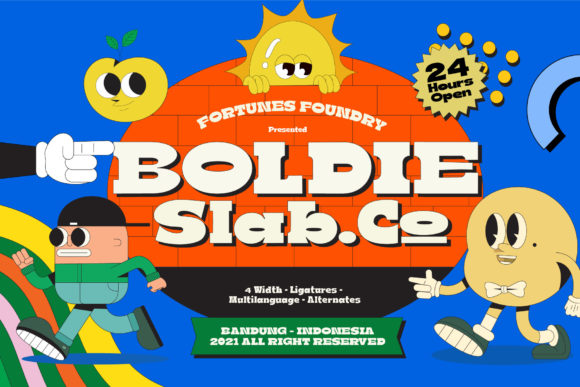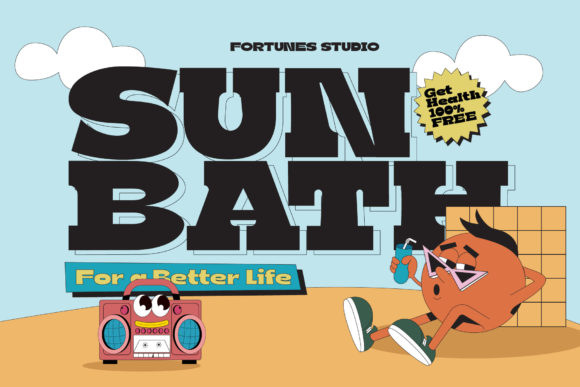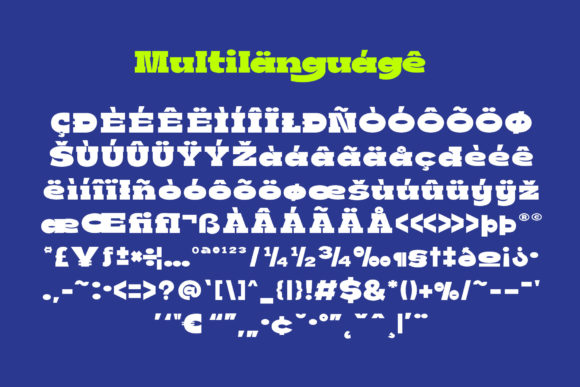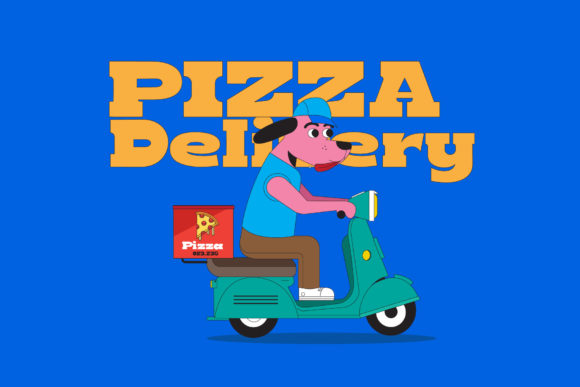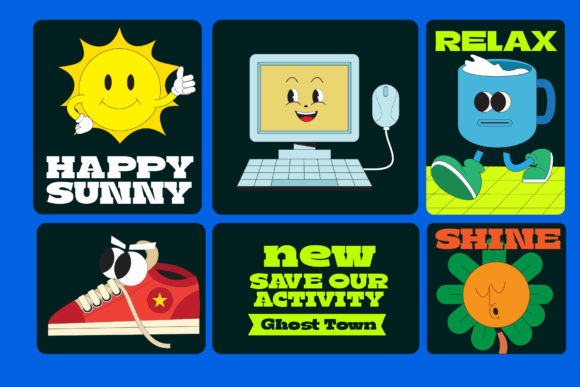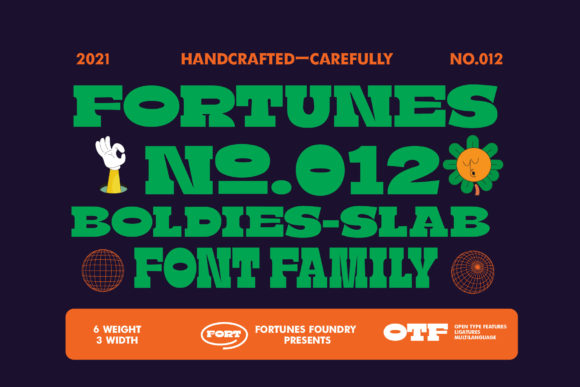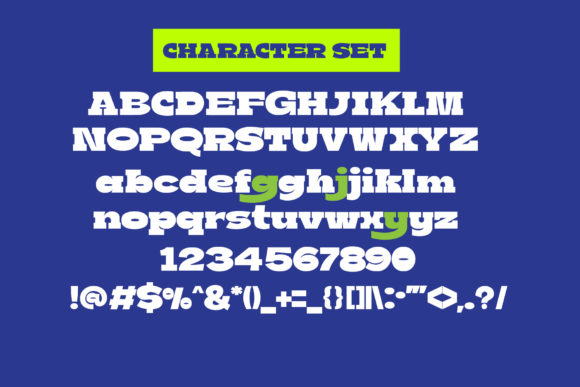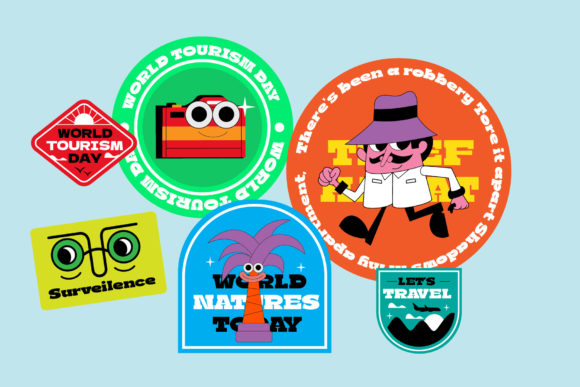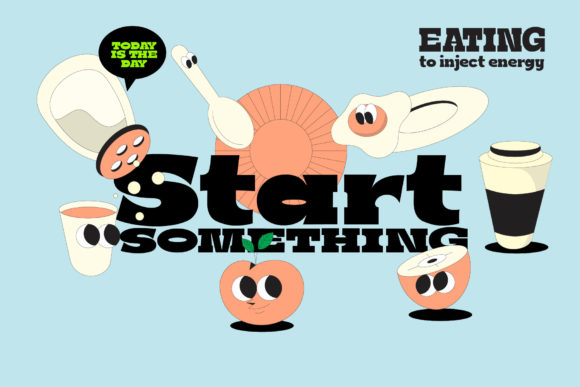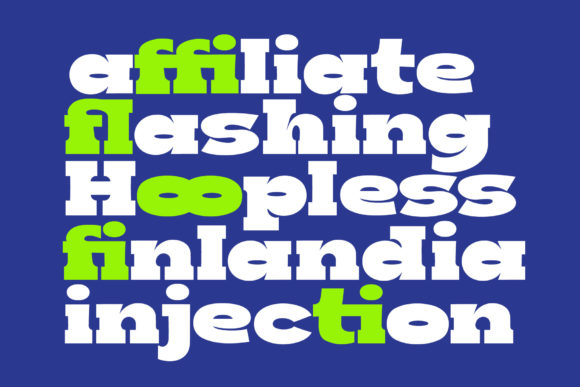
Boldie
Boldie: A Bold and Playful Slab Serif Font
Boldie is a distinctive slab serif font that combines boldness with a playful and fun aesthetic. This versatile typeface is designed to add a lovely touch to a wide range of creative projects, making it an amazing choice for various applications.
Key Features of Boldie
• Bold Design: Features strong, eye-catching letterforms that command attention.
• Playful Aesthetic: Incorporates fun elements that add a lively touch to designs.
• Slab Serif Structure: Maintains the characteristic thick, rectangular serifs typical of slab serif fonts.
• Versatile Application: Suitable for a wide range of projects, from cartoon-related designs to children’s games.
• Lovely Touch: Designed to enhance creative projects with its charming appearance.
Ideal Uses for Boldie
Boldie’s unique characteristics make it particularly well-suited for:
• Cartoon-related designs that need a bold and fun touch
• Children’s games and educational materials
• Playful branding and logo design
• Eye-catching headlines and titles for kid-friendly content
• Book covers and illustrations for children’s literature
• Any creation that requires a lovely and engaging typographic element
When incorporating Boldie into your designs, consider the following tips:
• Use for headlines or short blocks of text to maximize its bold and playful impact
• Experiment with different sizes to highlight the font’s fun details
• Take advantage of its versatility across various projects that require a lovely touch
Boldie is an excellent choice for designers looking to add a bold, playful, and fun slab serif font to their typographic toolkit. Its ability to enhance various design projects makes it stand out in the world of typography. Whether you’re working on cartoon-related designs, creating layouts for children’s games, or developing any project that requires a lovely touch, Boldie offers the perfect blend of boldness and charm.
Add Boldie to your creative projects and explore how it can bring a bold and playful edge to your designs. From eye-catching headlines to engaging branding elements, this font provides the tools to create impactful and memorable typography that resonates with audiences seeking a fun and lively aesthetic.